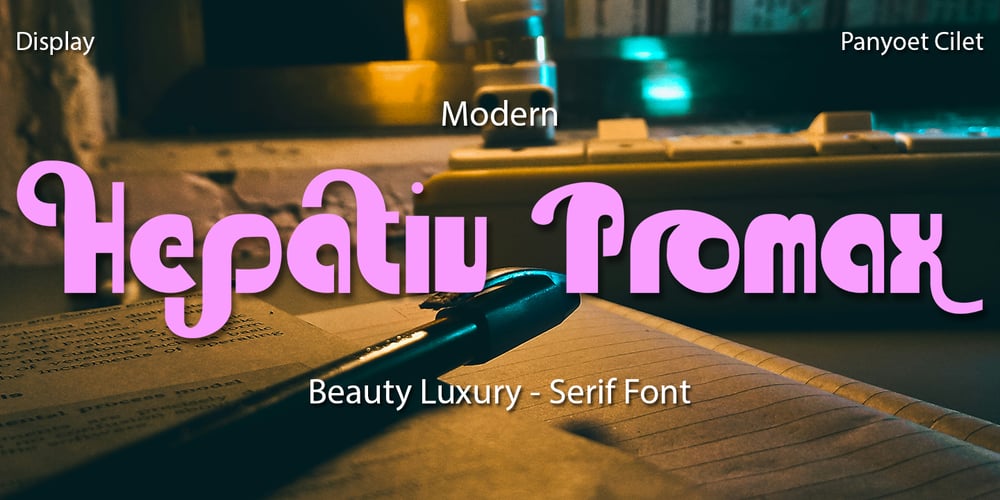
Hapatiu Promax Font Family was designed by Teuku Muhammad Zaki and published by Zaki Creative. Hapatiu Promax contains 1 styles and family package options. Hepatiu Promax is a modern serif font that has a bold yet elegant feel. Hepatiu Promax was born when I was inspired by a work of art. This font is suitable for use on packaging boxes, glasses, clothes and stickers. Hopefully Hepatiu Promax can brighten your days when creating certain projects.Don’t hesitate to contact me if you need further explanation.Thank you very much